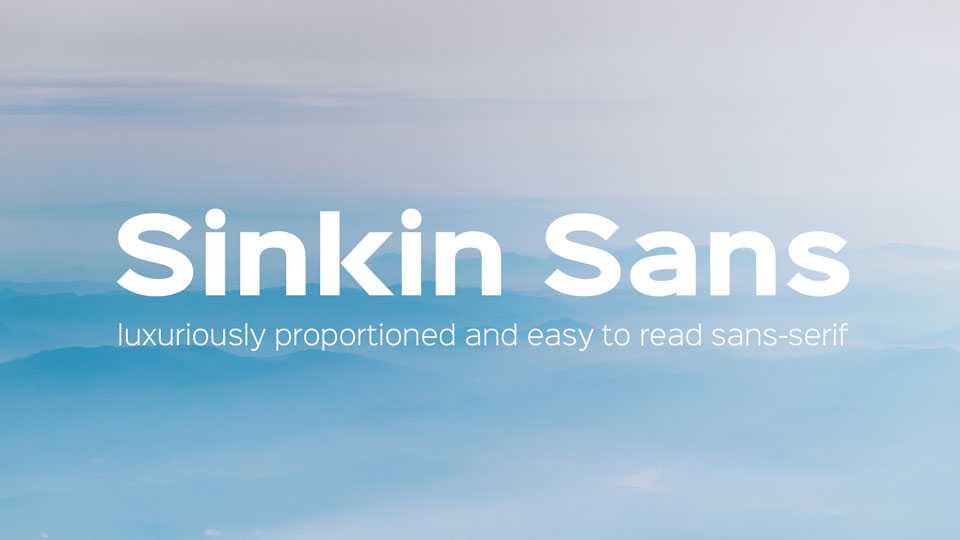
Download Sinkin Sans typeface, a simple, pleasant, luxuriously proportioned and easy to read sans serif font family in nine weights plus italics. Sinkin Sans is designed with tiny, inconspicuous notches that sink into verticals at the intersections of strokes, adding highlights to congested corners.
Designer: K-Type